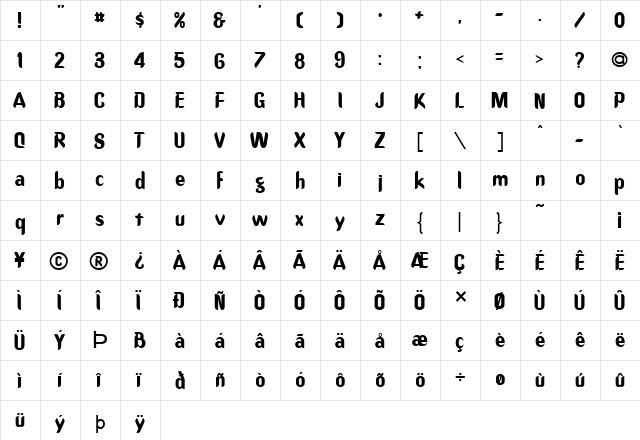
Callimarker Normal
Design Context for Callimarker Typeface
Callimarker takes a measured approach to typography — its balanced proportions and neutral character make it a reliable workhorse for both digital and print work.